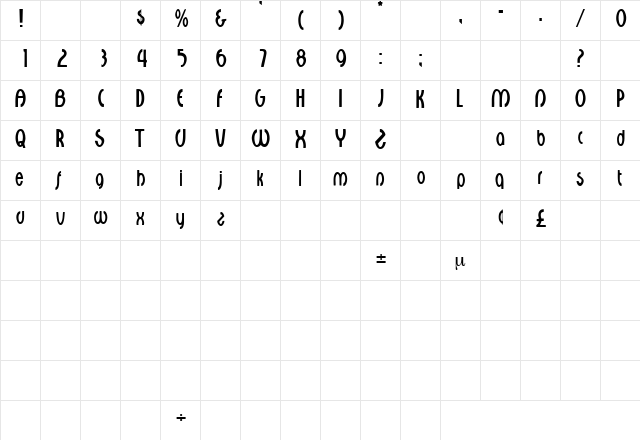
CourantDisplaySSK Regular
Design Context for CourantDisplaySSK Typeface
CourantDisplaySSK is built around its visual character rather than neutral utility — its distinctive forms are designed to make an impression at display sizes.
Font Pairing: Pair with a clean neutral sans-serif for body copy to let CourantDisplaySSK's character lead without overwhelming the composition.
Pro Tip: Treat CourantDisplaySSK as the centrepiece of your typographic hierarchy. One strong heading set in a decorative face can carry an entire layout.